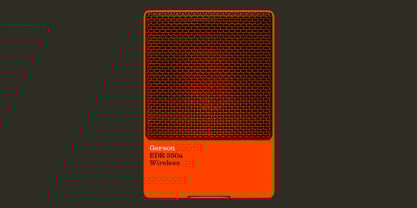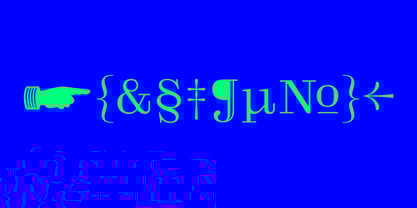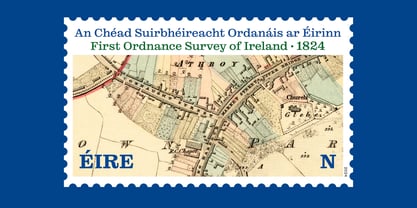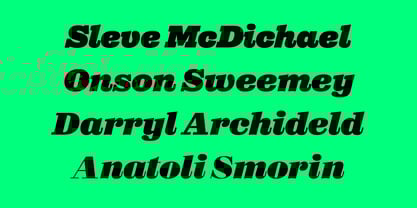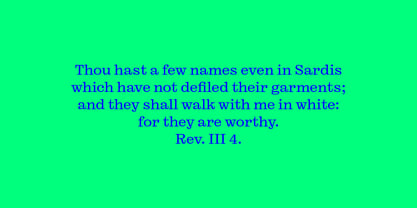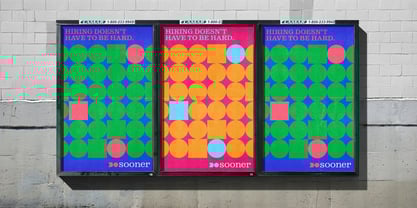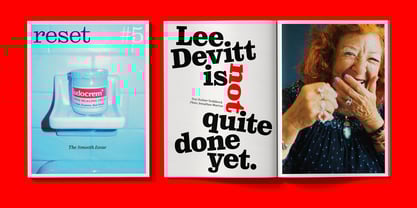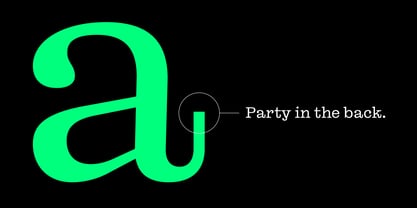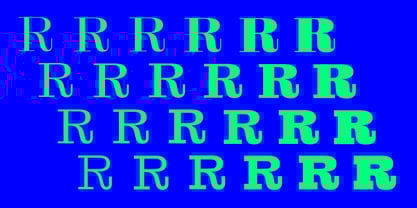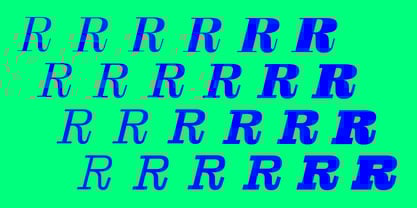
Reckham
Reckham is our mutant Scotch Roman. We wanted to draw a Century Expanded that turned Clarendon when it got bolder, but somewhere along the way the serifs came unbracketed and our ideals of clarity and rigor had to make room for a few eccentric details. Then we couldn’t decide on a degree of contrast, so we went with all of them. The No1 Series, with its hairline thin strokes, is nearly Didone, and its blackest weights are Fat Face. The nearly monoline No4 Series is typewriterish in the lightest styles and Egyptian in the darkest. No2 and No3 Series represent sturdy and quite readable steps along the way. The result isn’t what we expected, but it must have been what we wanted. Six weights, four degrees of contrast, and matching italics add up to 48 styles. The full family includes variable roman and italic fonts, so users can fine-tune weight and contrast to suit themselves.